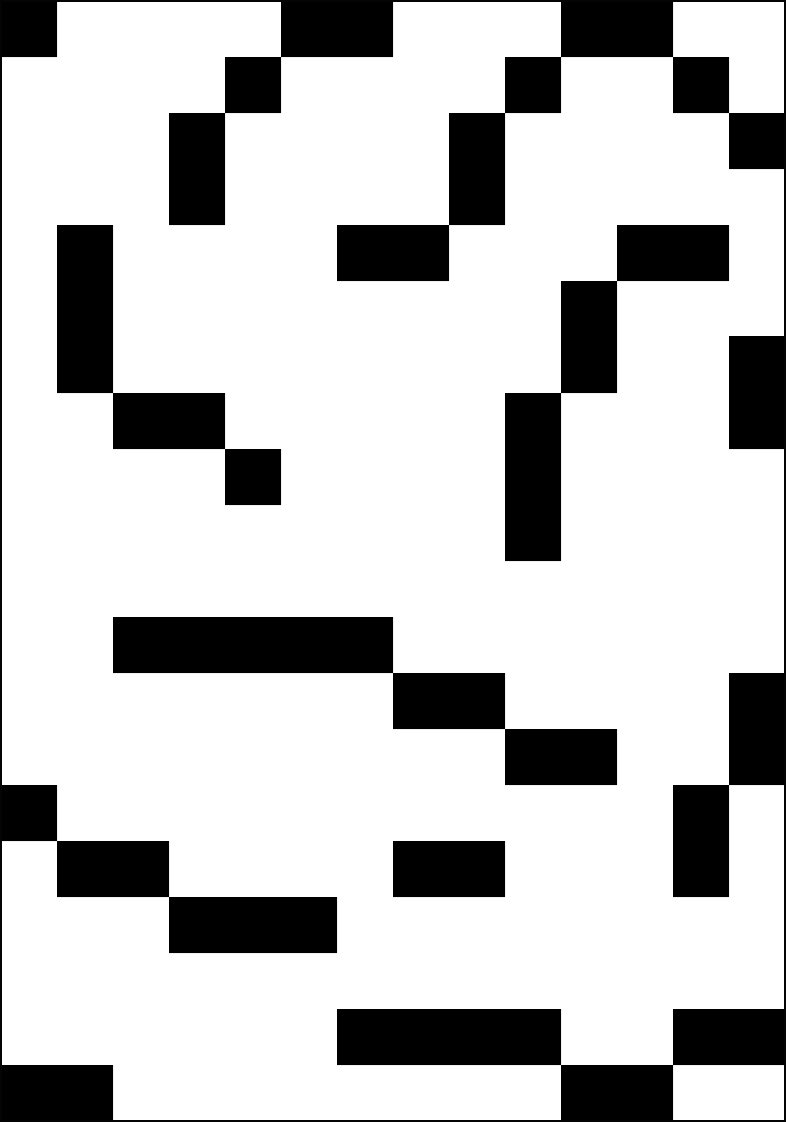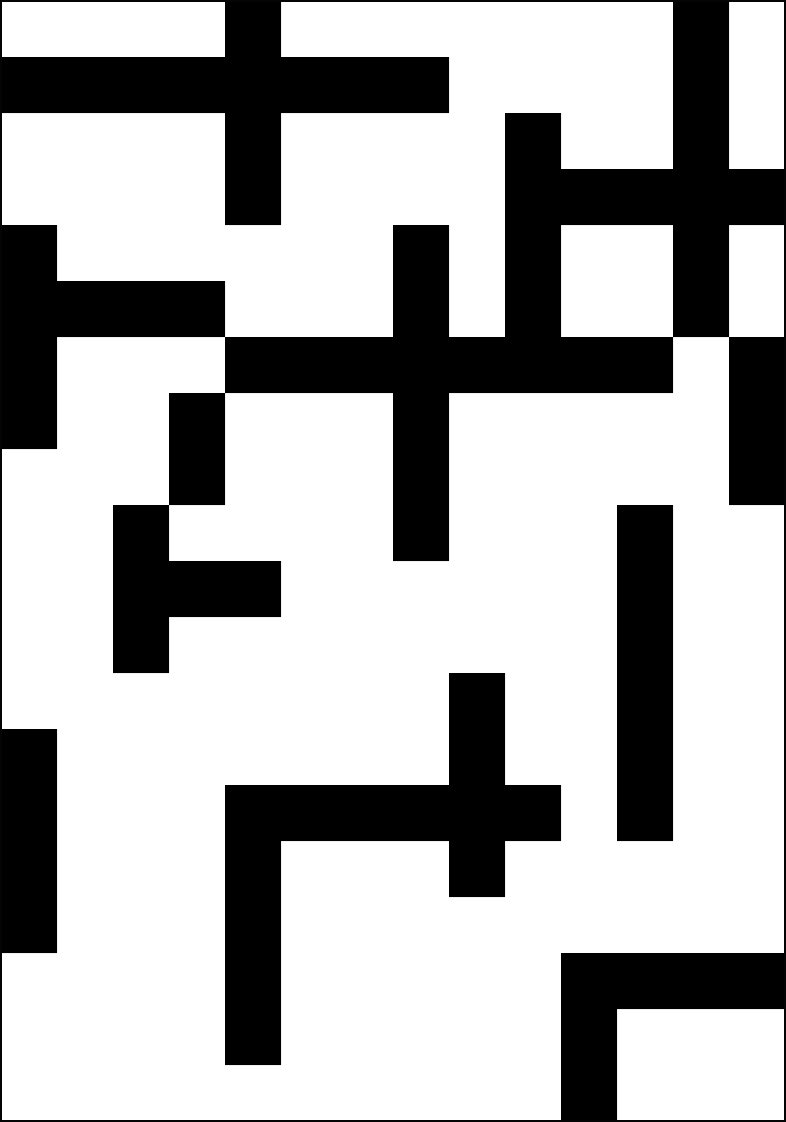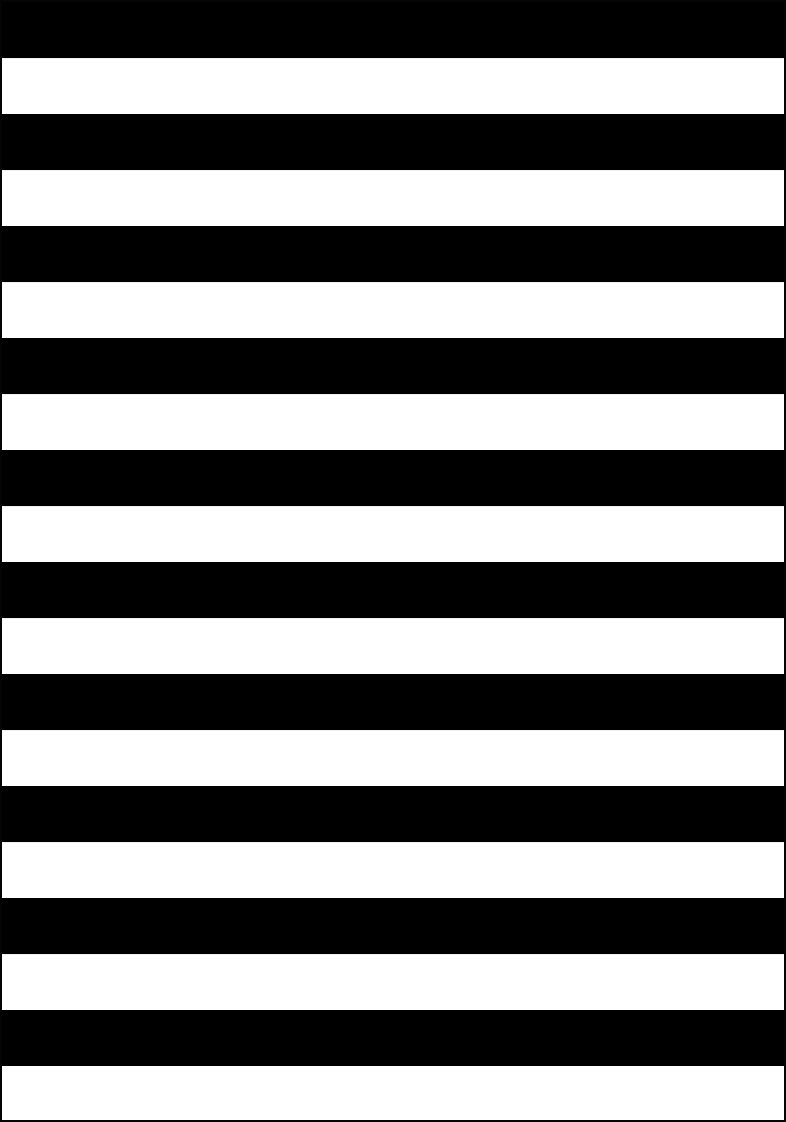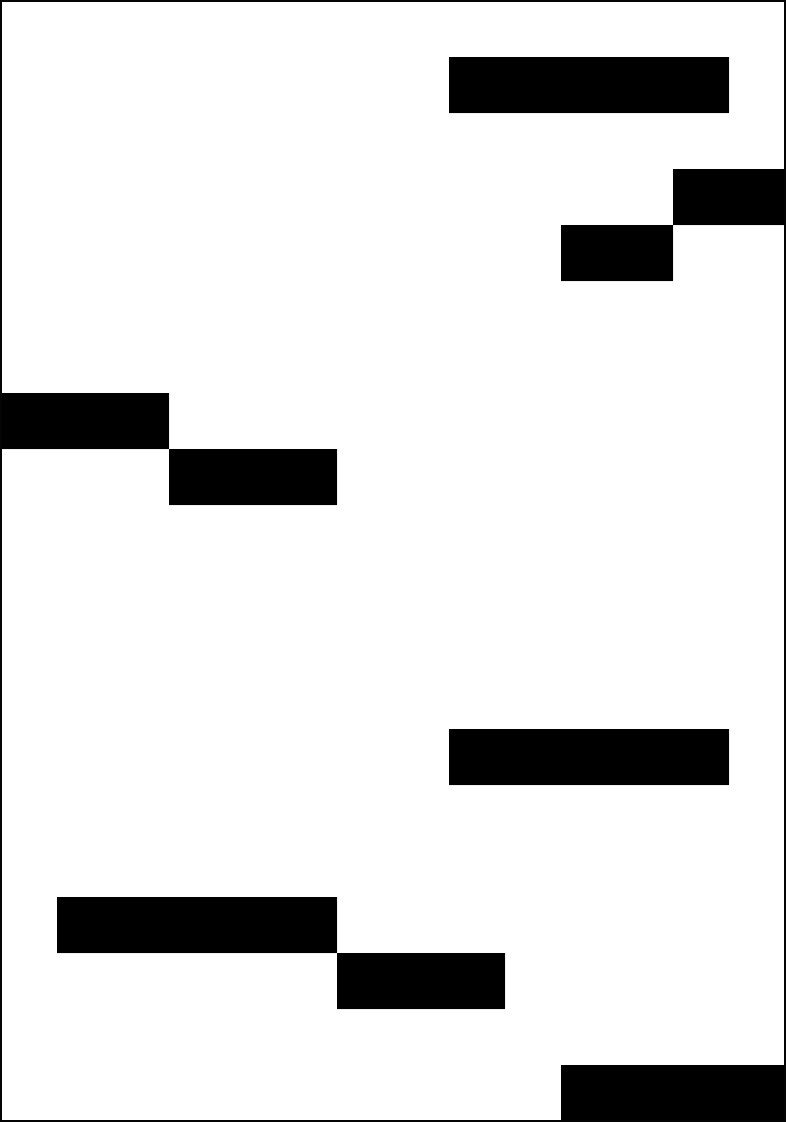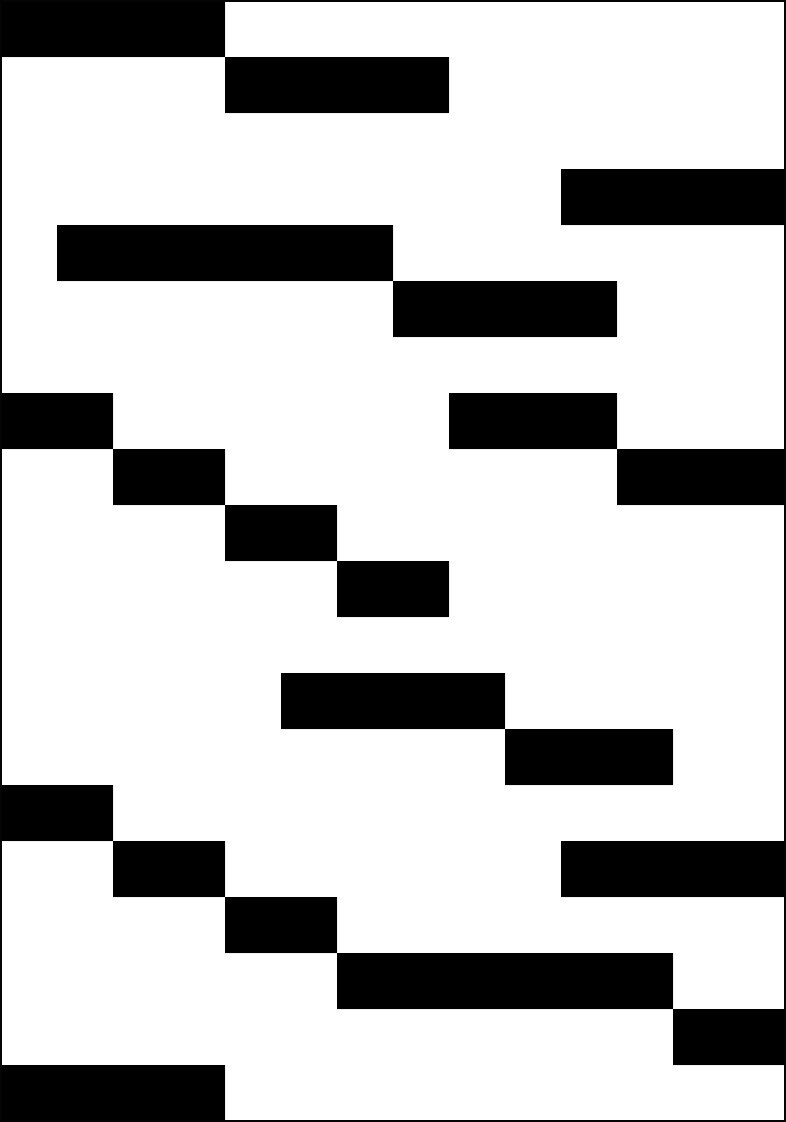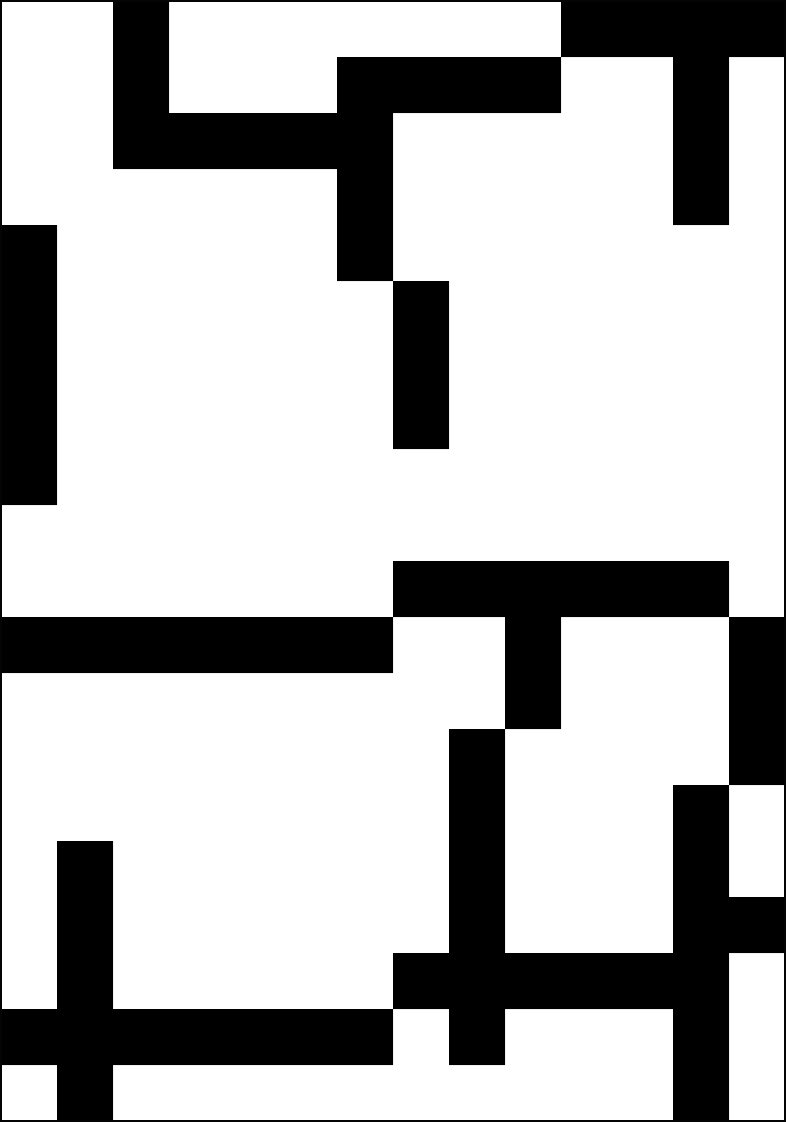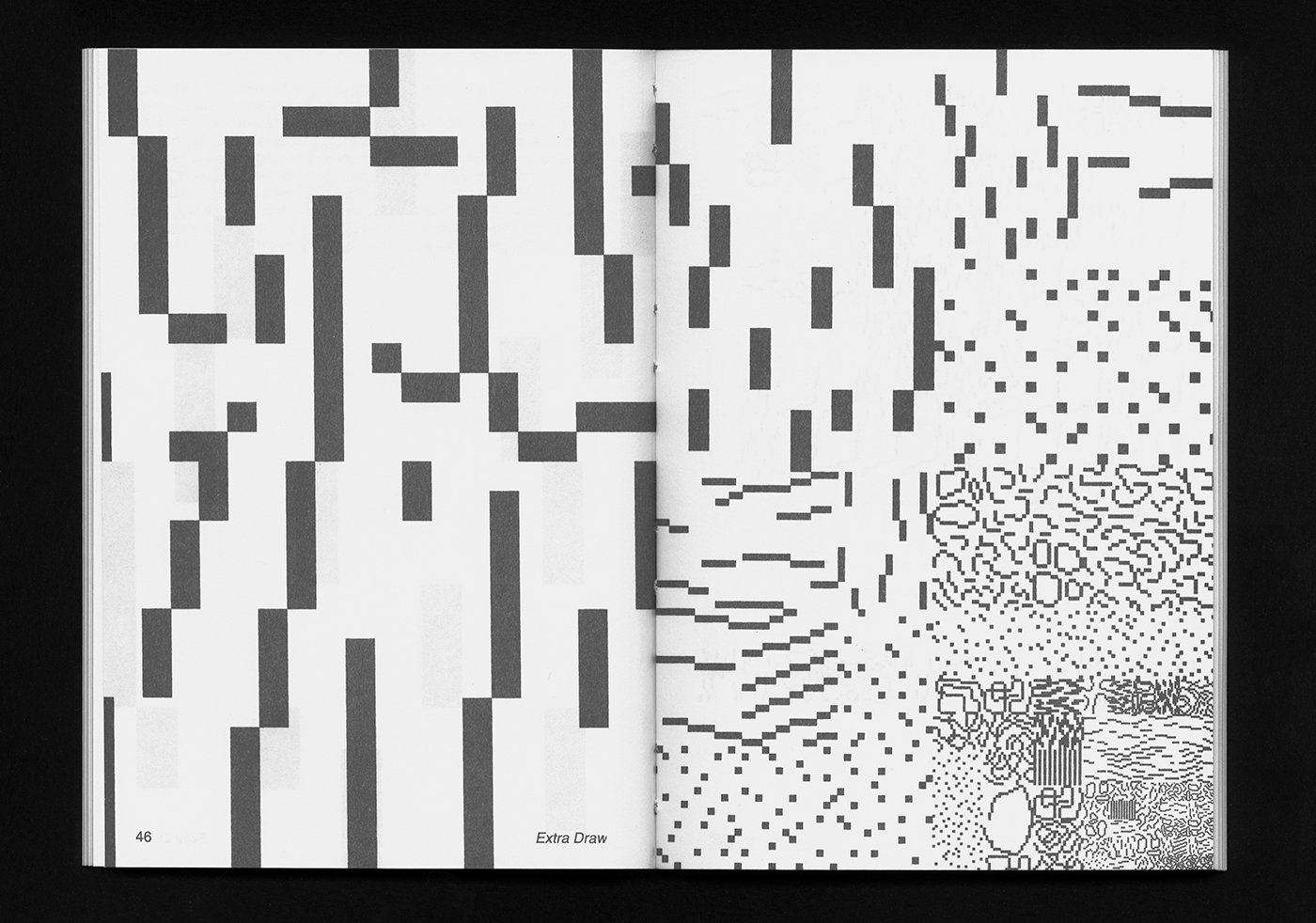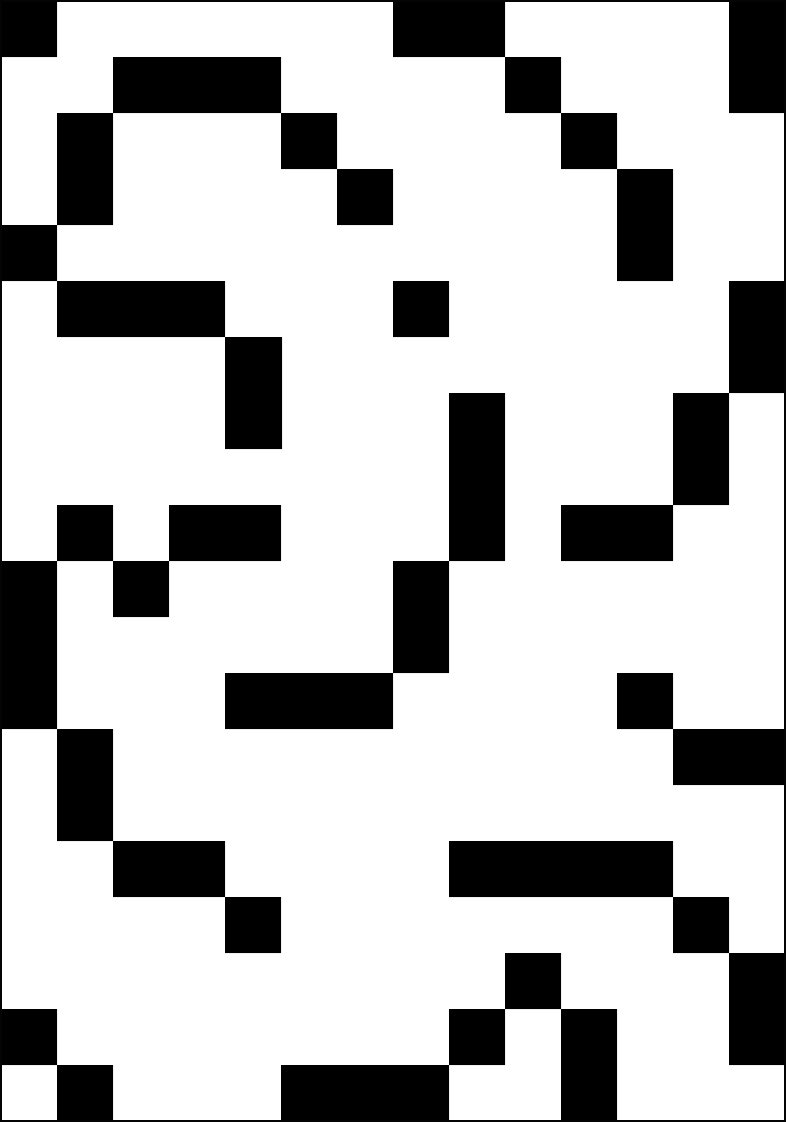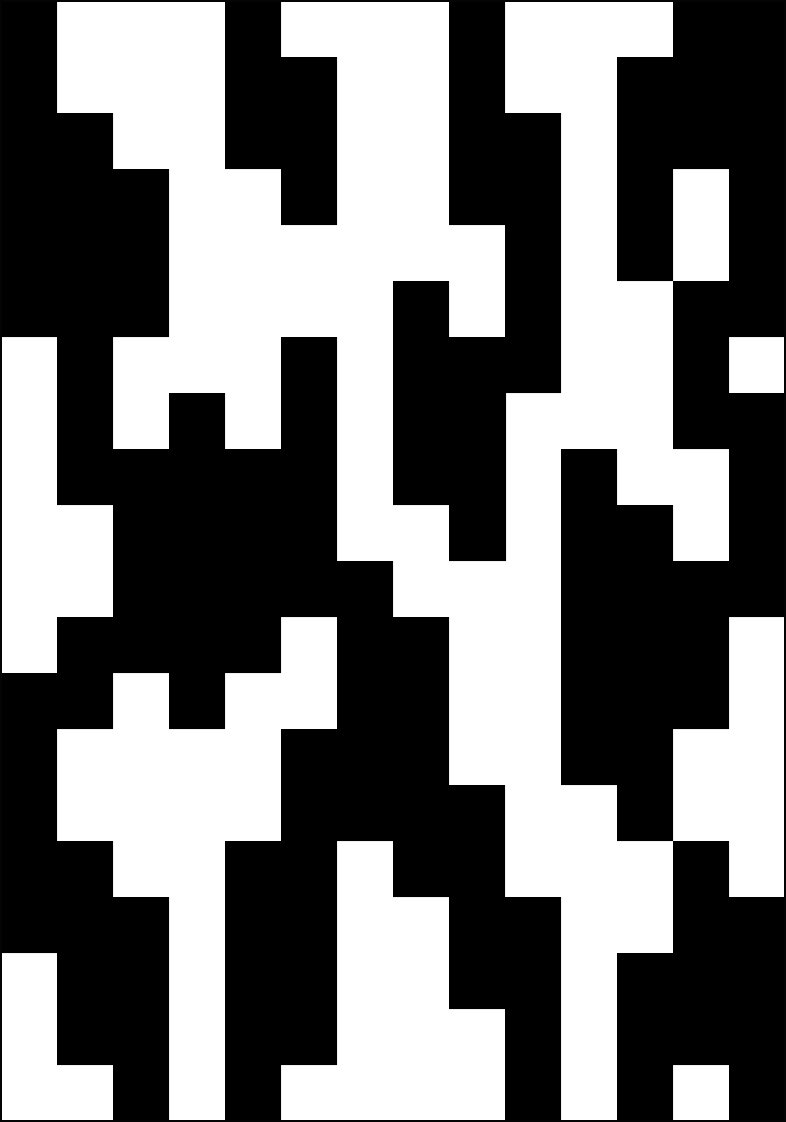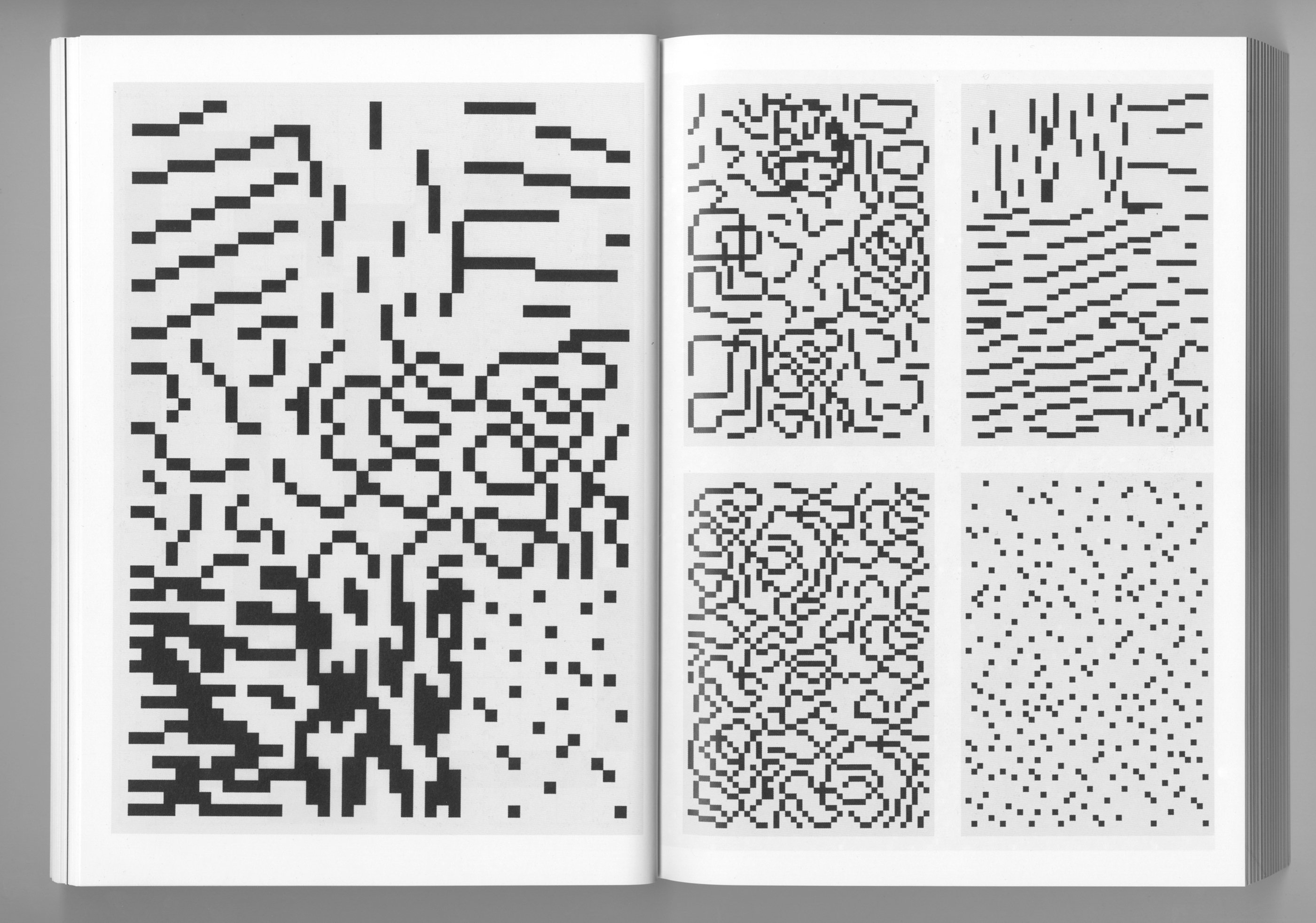
The Extra Draw typeface (2013), revised and expanded to mark the publication of the second edition of Paul Gangloff’s book Rules of Hypergraphy, published by Knust Extrapool in 2026. It is now named Paul New.
Extra Draw (2013), Mind Walks, Rollo Press, 2018.
Extra Draw (2013), Dictionary of the Illegible, Source Type, 2026.
Extra Draw/Paul New (2025), Rules of Hypergraphy, Knust Extrapool, 2026.